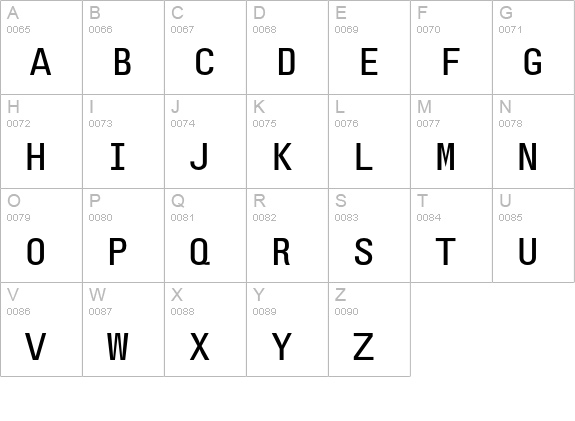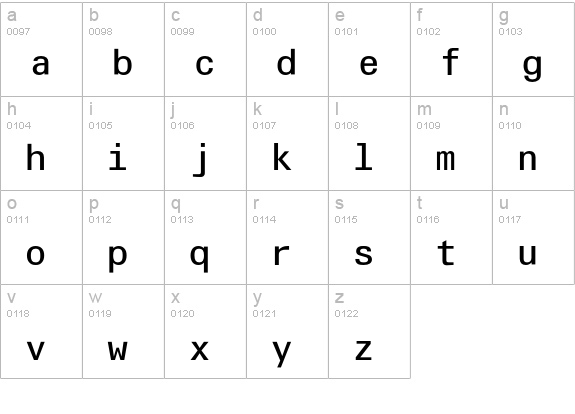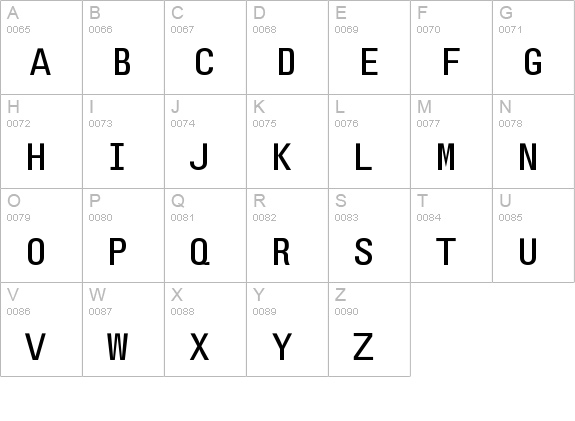
OlympiaEF-Light Font Details
OlympiaEF-Light is a refined, elegant variant in the OlympiaEF typeface family \xE2\x80\x94 well suited to elegant body text, refined sub-headings, and luxury branding.
The OlympiaEF-Light font is a versatile and elegant typeface that exudes sophistication and modernity. With its clean lines and subtle curves, this font is perfect for adding a touch of refinement to any design project. Whether you're working on a branding campaign, website design, or print materials, OlympiaEF-Light is sure to make a lasting impression. What's even better is that this exquisite font is completely free for you to use. That's right, you can download OlympiaEF-Light at no cost from FontsMarket.com. Don't miss out on this fantastic opportunity to elevate your designs with a high-quality font that won't break the bank. Download OlympiaEF-Light today and start creating stunning visuals that will captivate your audience.